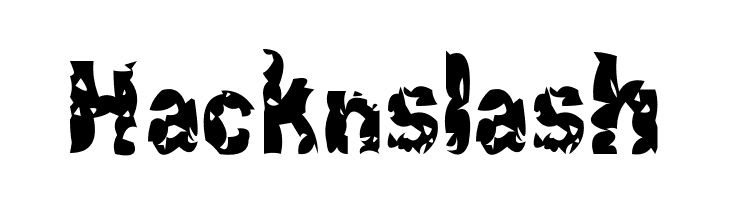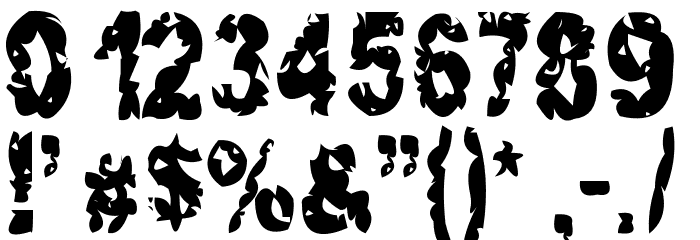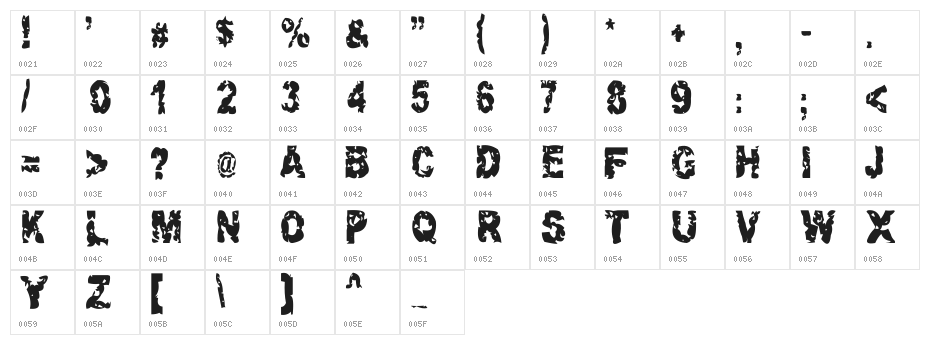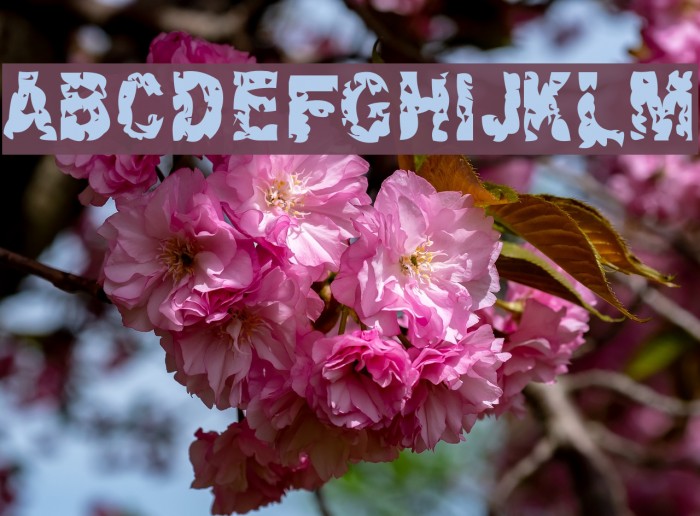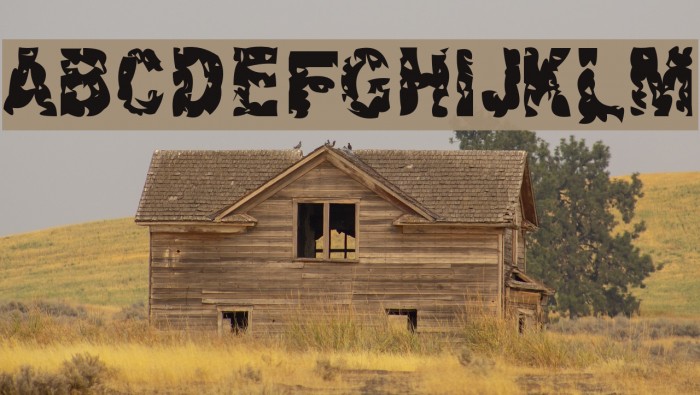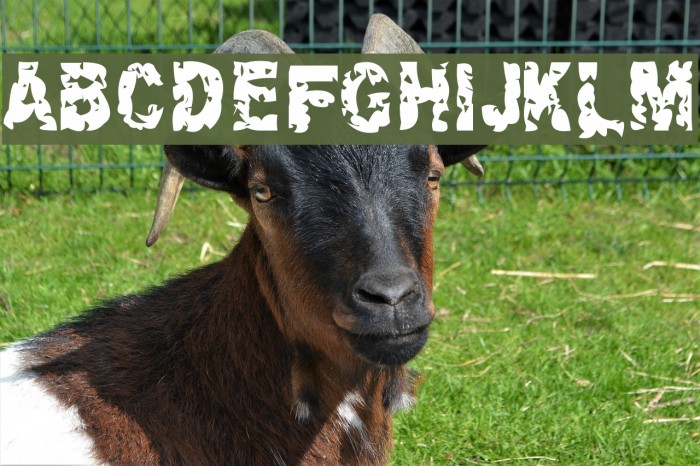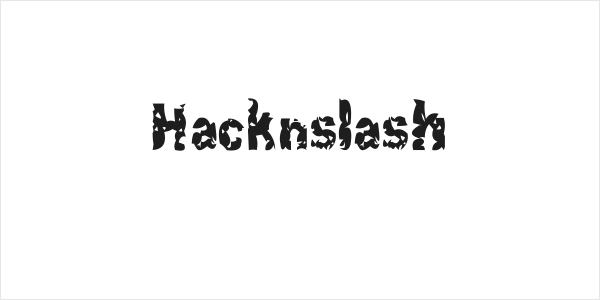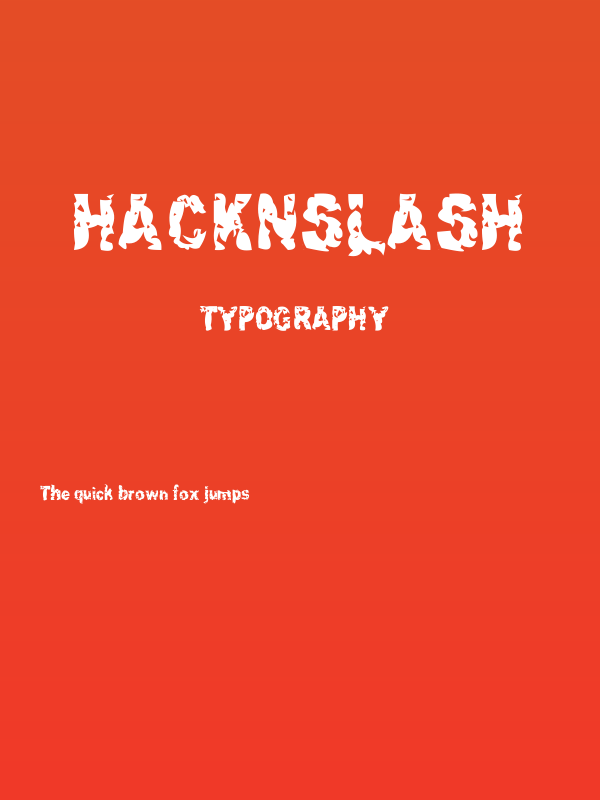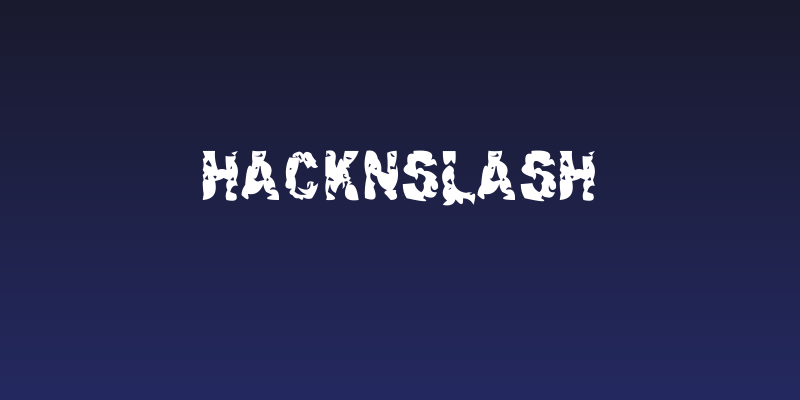
Hacknslash Font
Hacknslash Description
This font features a bold and aggressive design with jagged, irregular edges that give it a chaotic and intense appearance. The characters are heavily stylized, resembling torn or slashed elements, which adds a dynamic and edgy feel. The uppercase and lowercase letters maintain a consistent style, with each character displaying unique cuts and shapes that contribute to the overall rugged aesthetic. Numbers and special characters follow the same design principles, ensuring a cohesive look across all glyphs. This font is ideal for projects that require a strong, impactful visual statement.
| Proposed Projects | Perfect for horror-themed posters, video game titles, edgy branding, and any project needing a dramatic, eye-catching typeface. |